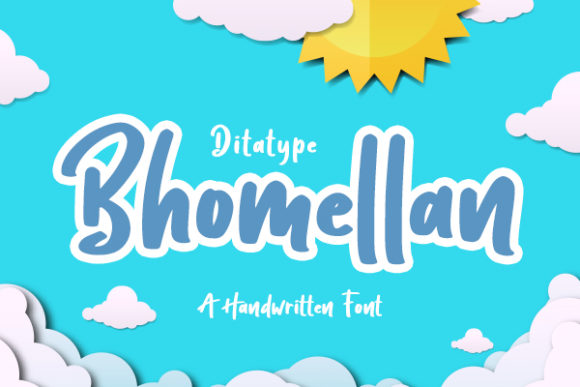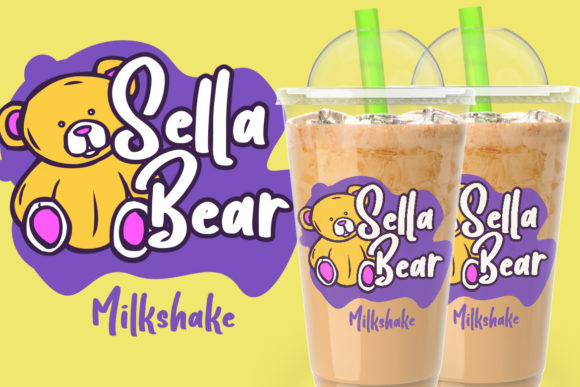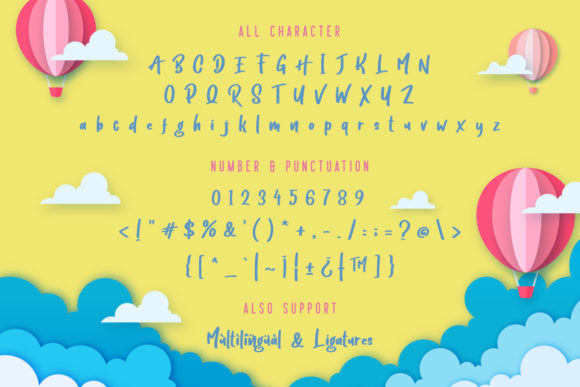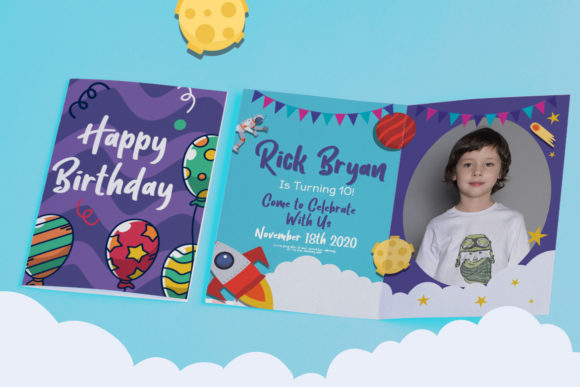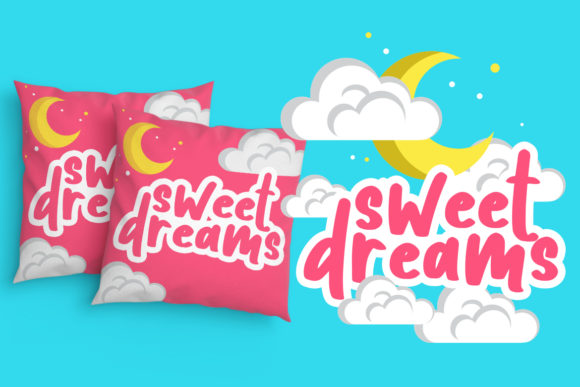
Bhomellan Font
About Bhomellan Font
Bhomellan is playful handwritten font, carefully created with a touch of magic. It embodies fun, quirkiness and authenticity. This gorgeous font will turn any creative idea into a true standout. Get inspired by its relaxed style, and use it to brighten up any kids and school project!